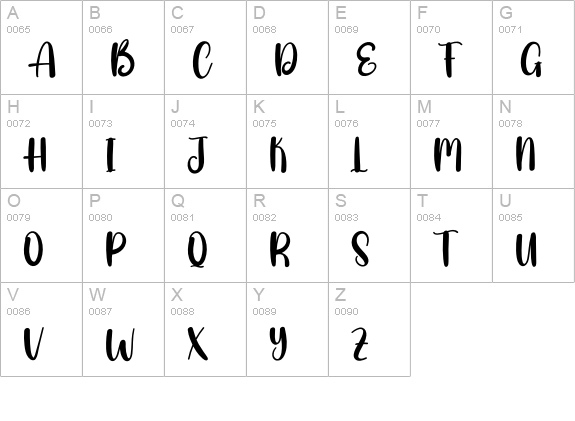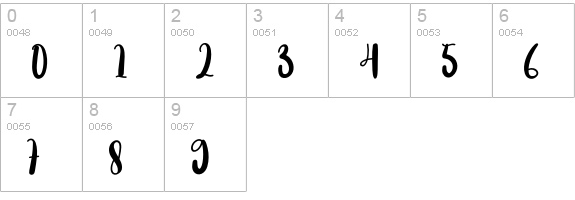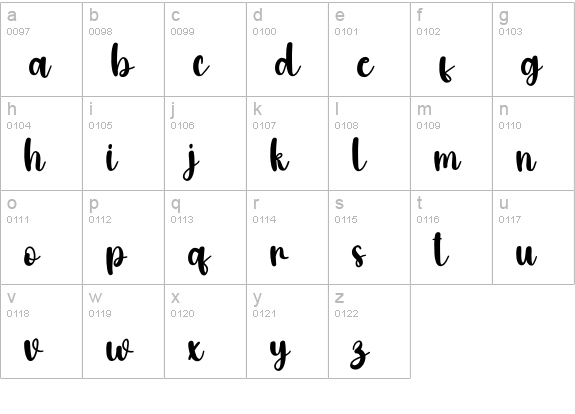
Body is a free for personal use font in the Script > Handwritten category, designed by scratchones. It has been downloaded 40 times and is available for Windows, Mac and Linux.
Body font is a versatile and elegant typeface that is perfect for long blocks of text in various projects. With its clean lines and easy readability, Body font is designed to enhance the legibility of your content while maintaining a professional appearance. Whether you are working on a website, brochure, or publication, this font will ensure that your message comes across clearly to your audience.